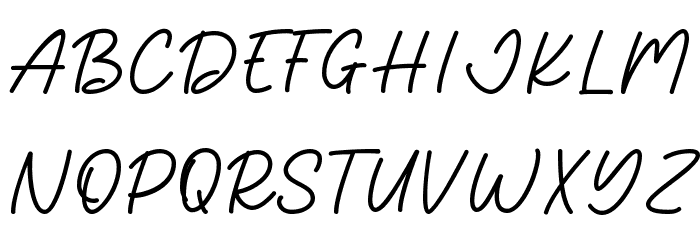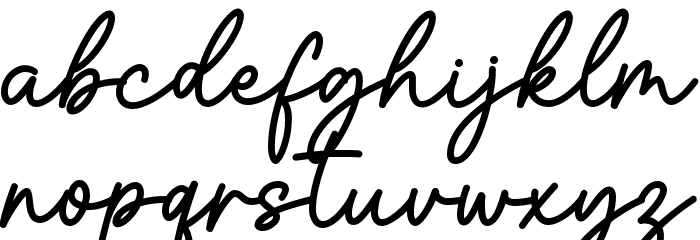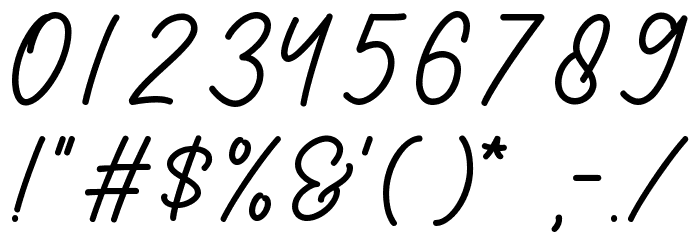
Danita Font
A flowing, cursive script font with smooth, connected letters and a handwritten appearance.
Elegant cursive script font.
- Font: Danita
- Proposed Projects: Invitations, greeting cards, personal branding.
- Category: Script
- Overall Style: Elegant, Handwritten
- Use Case: Logos, Headlines, Decorative text